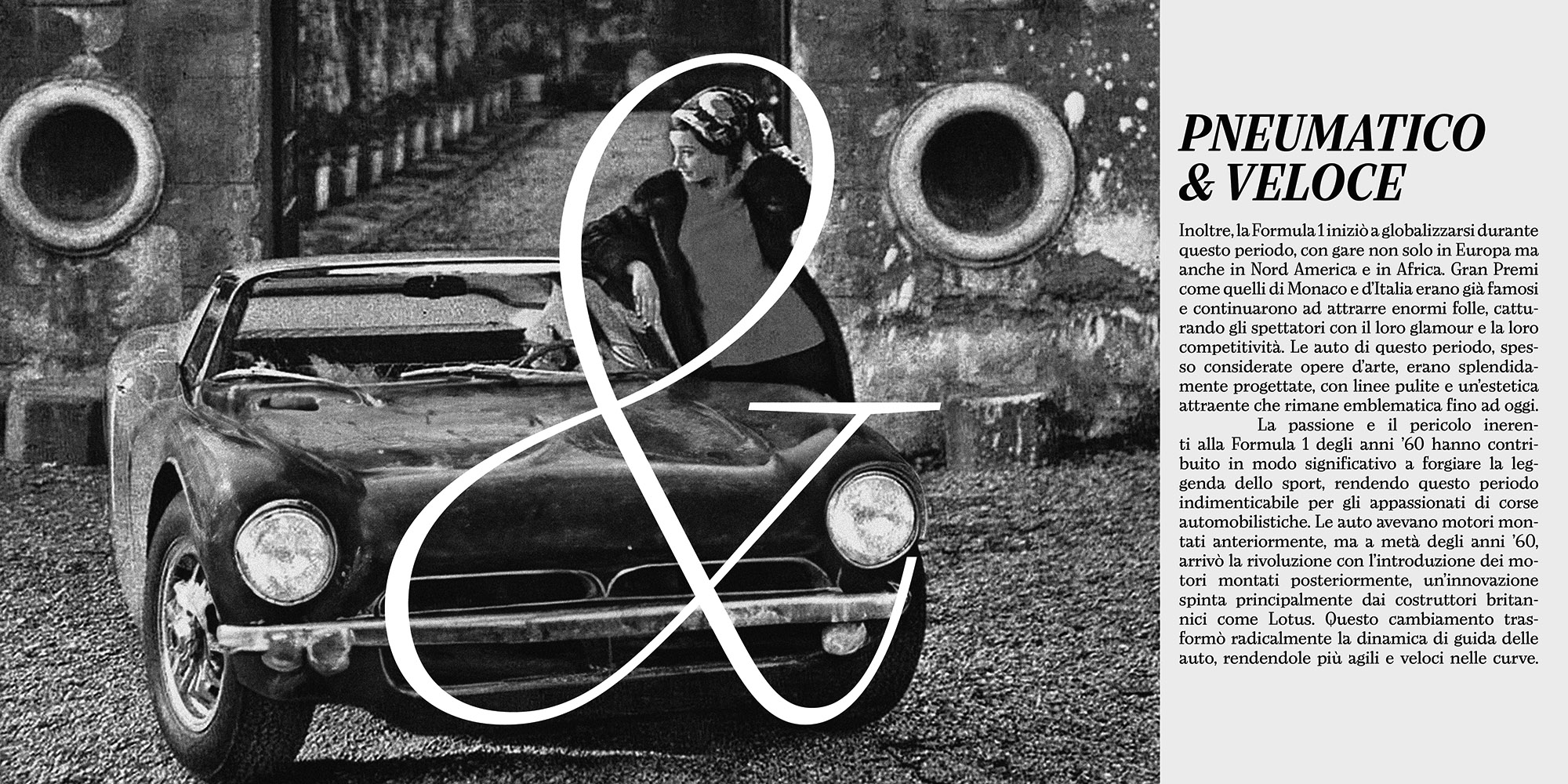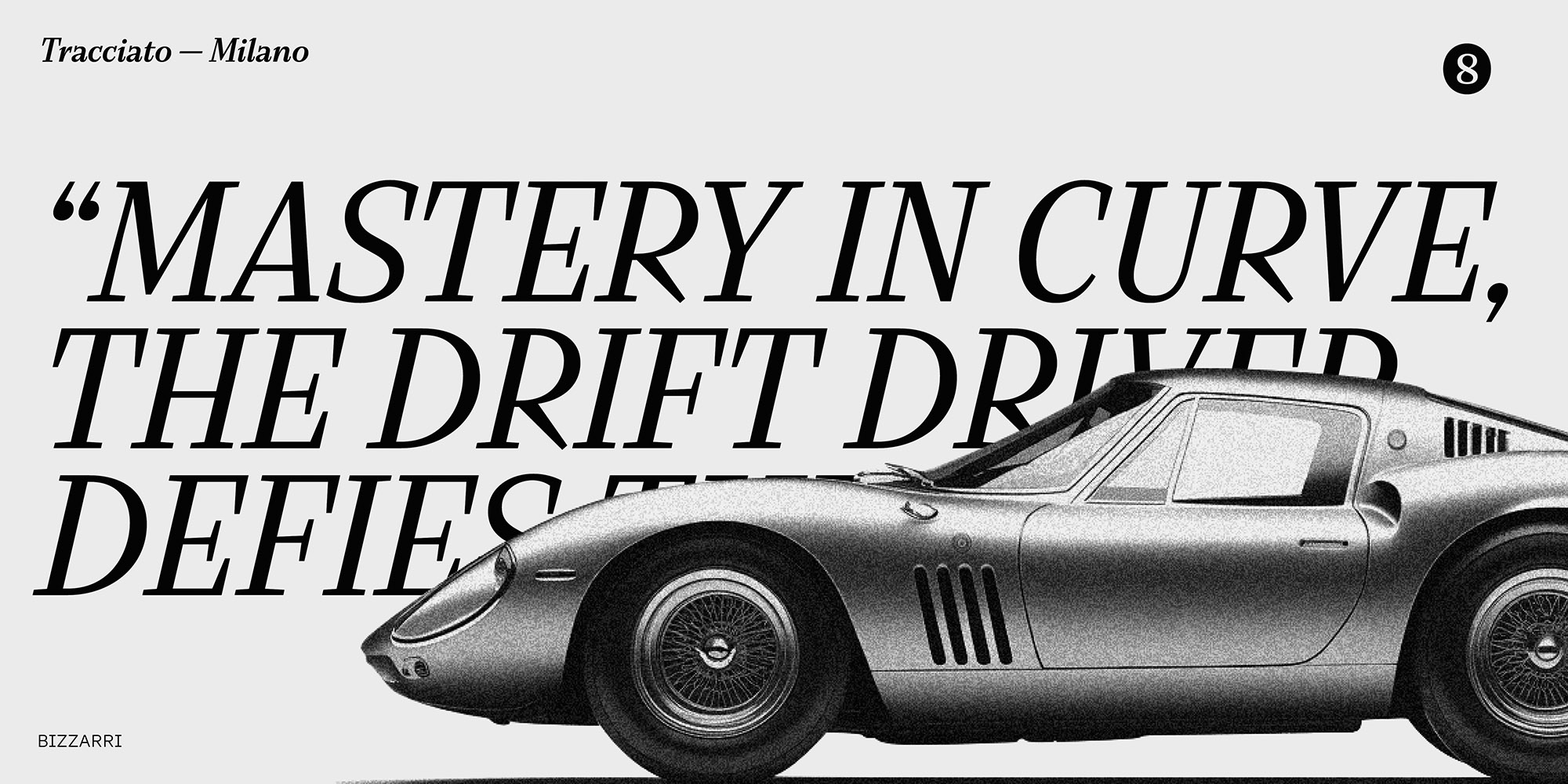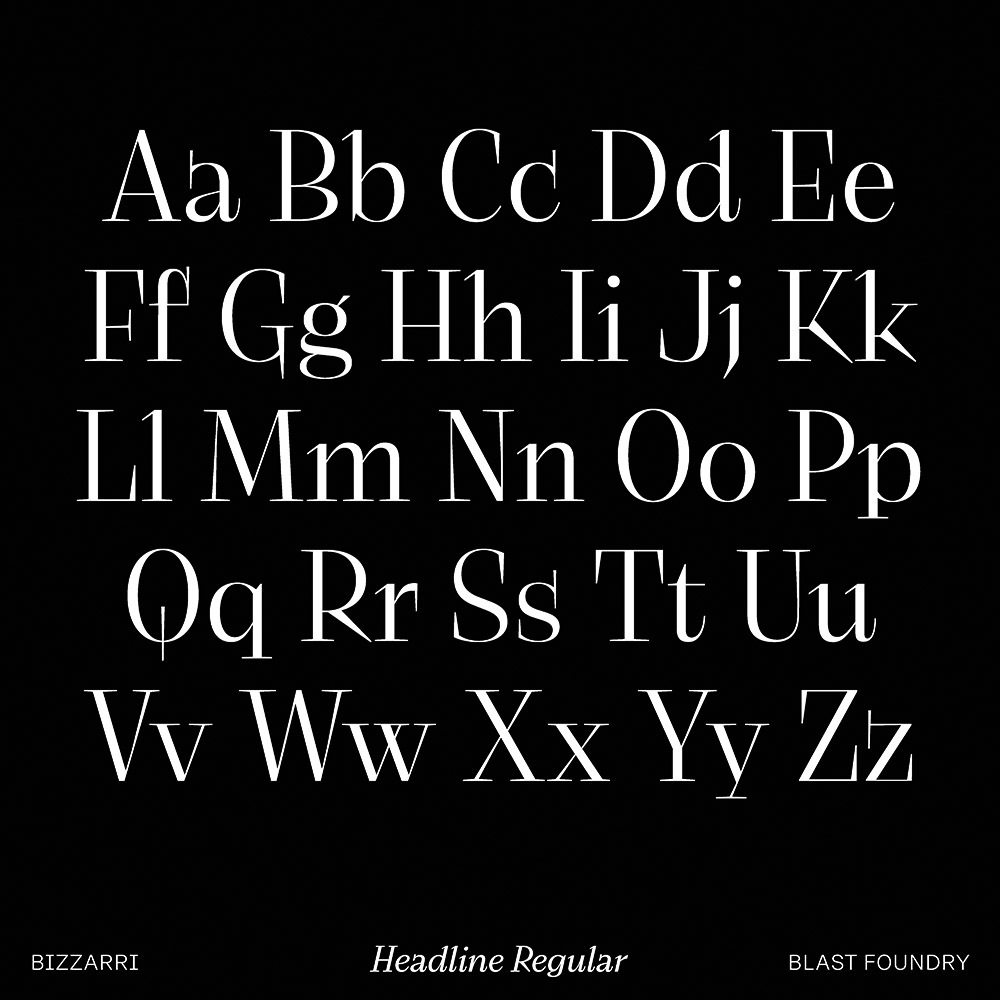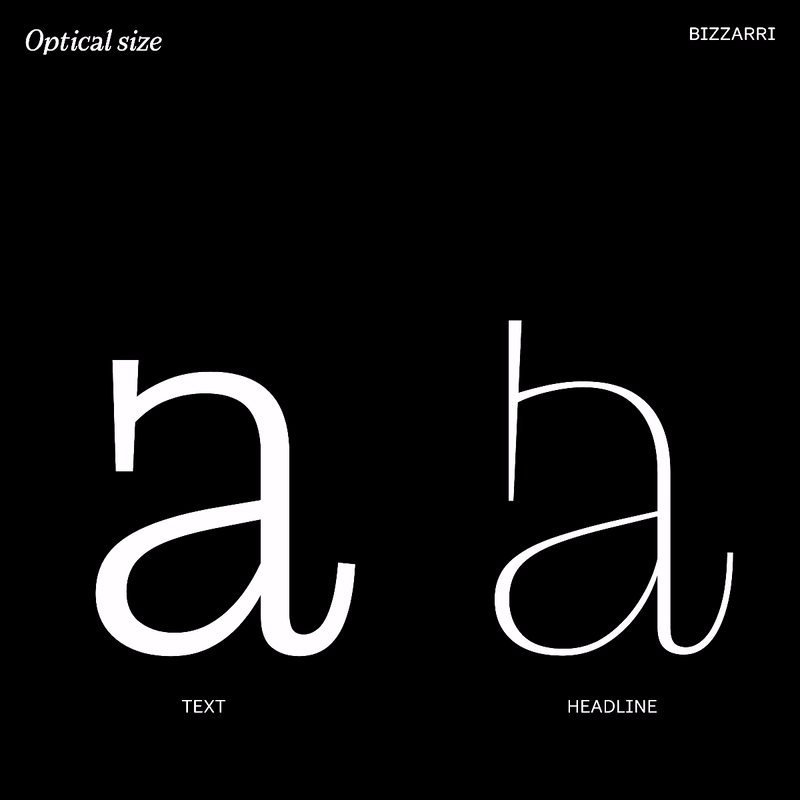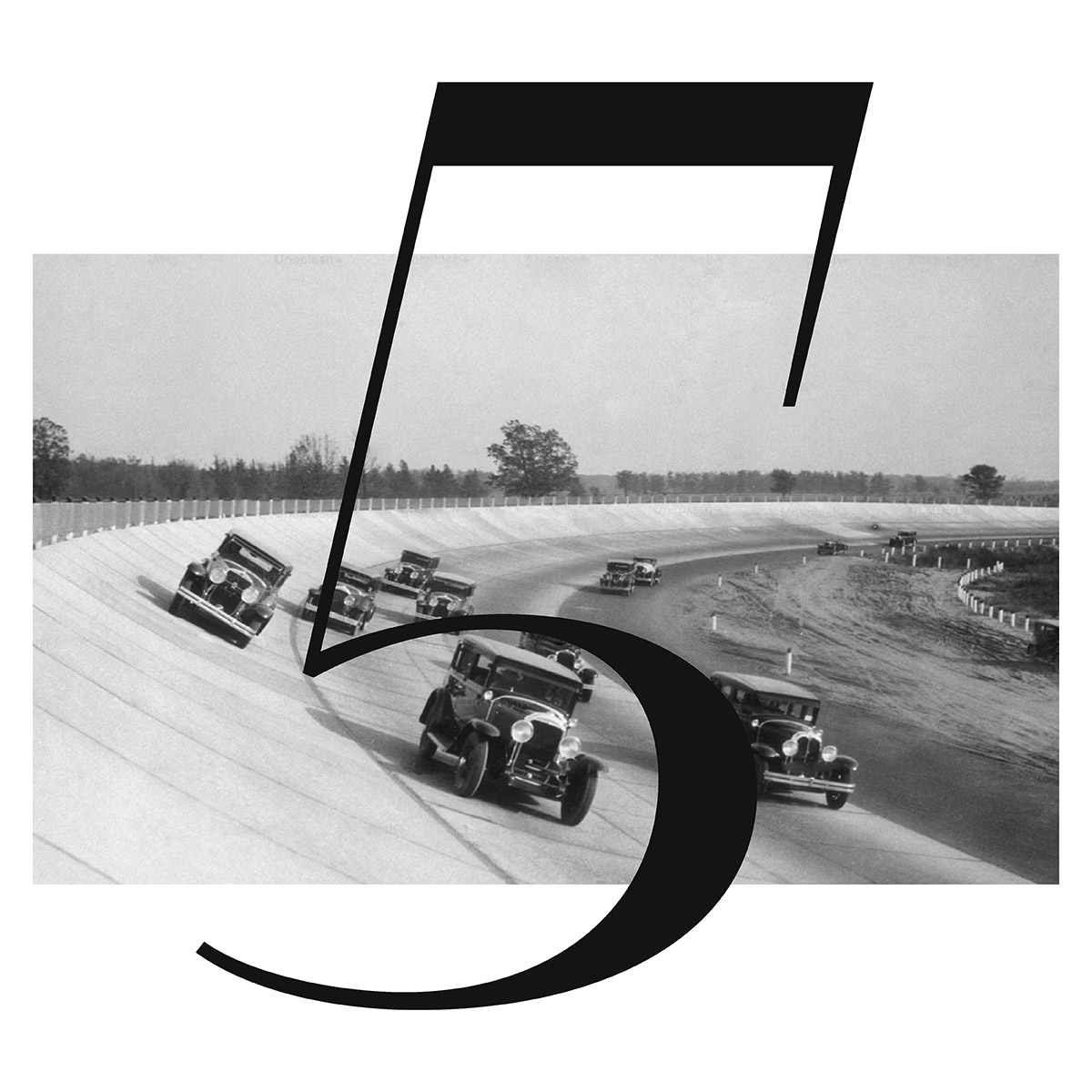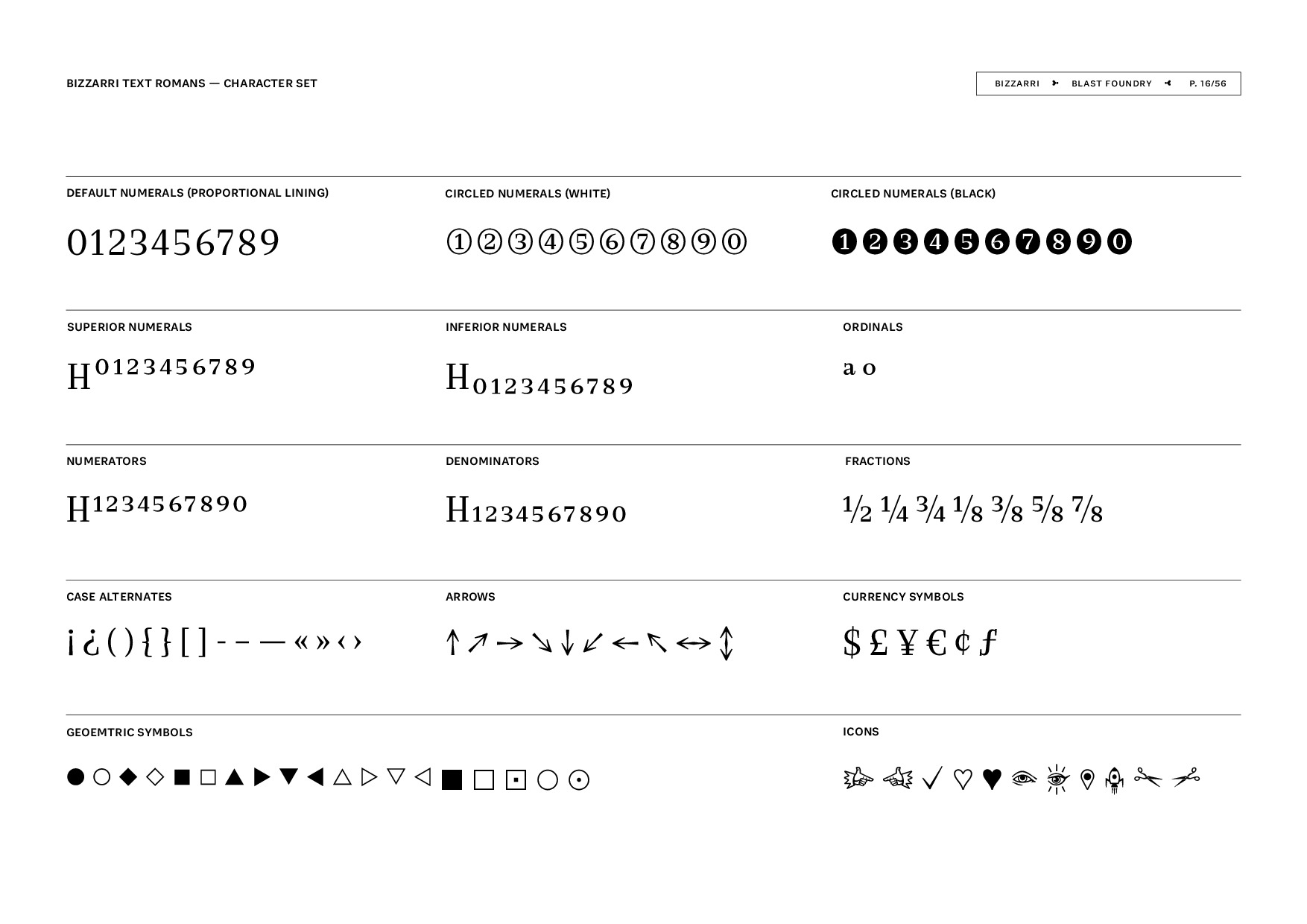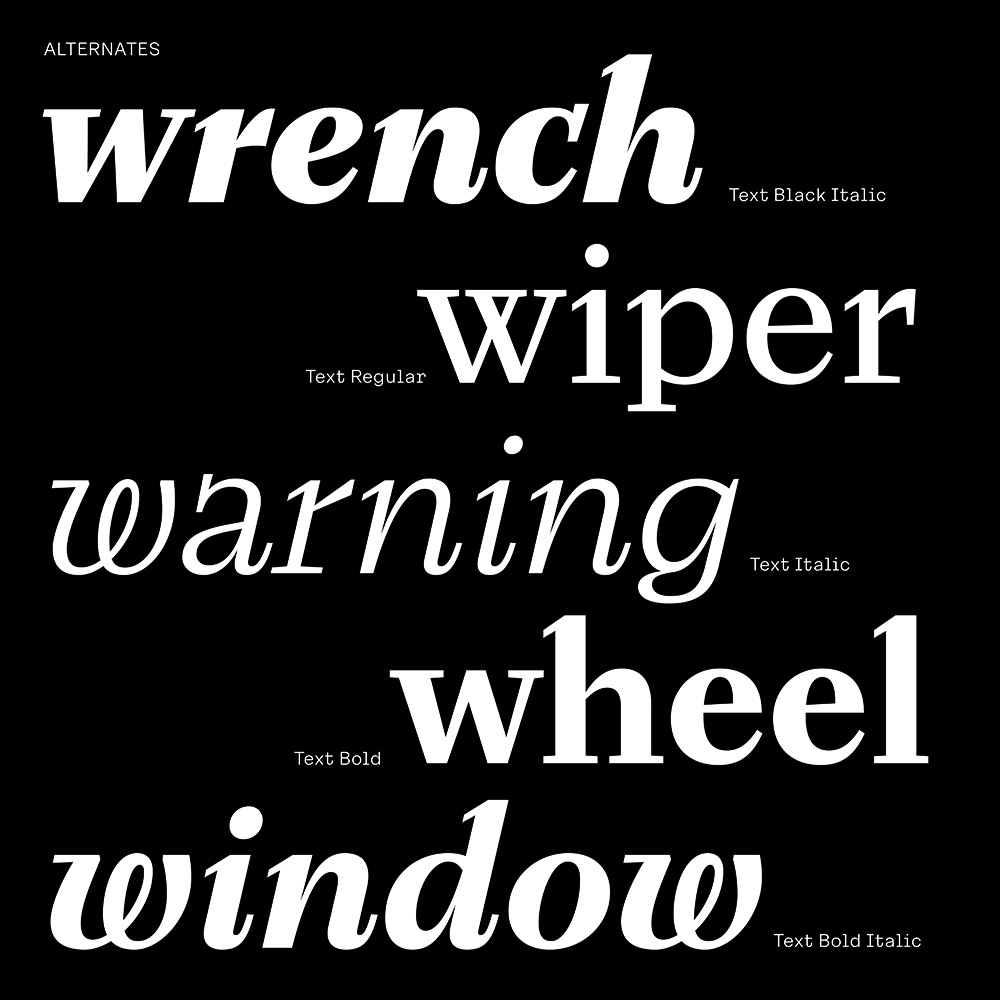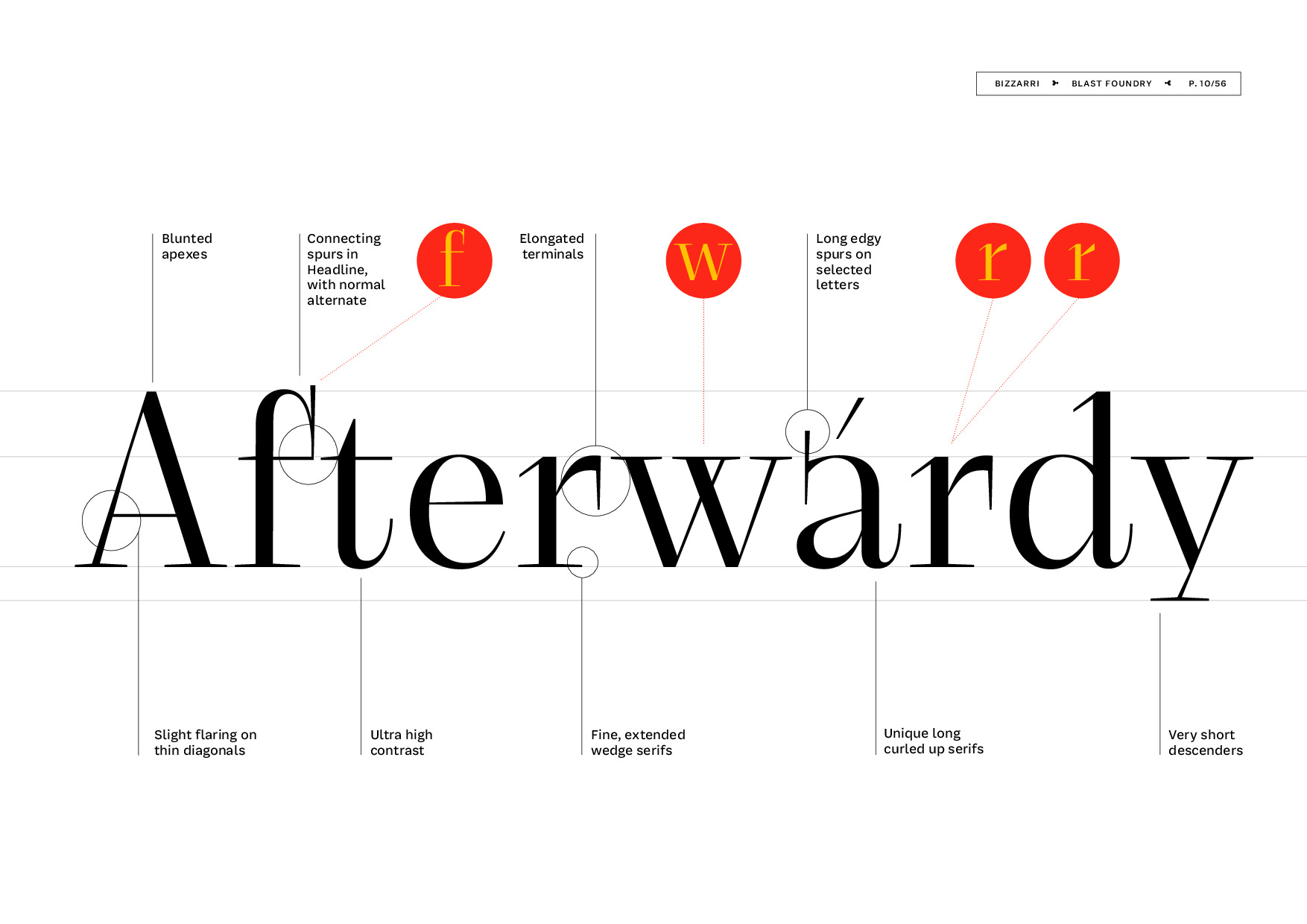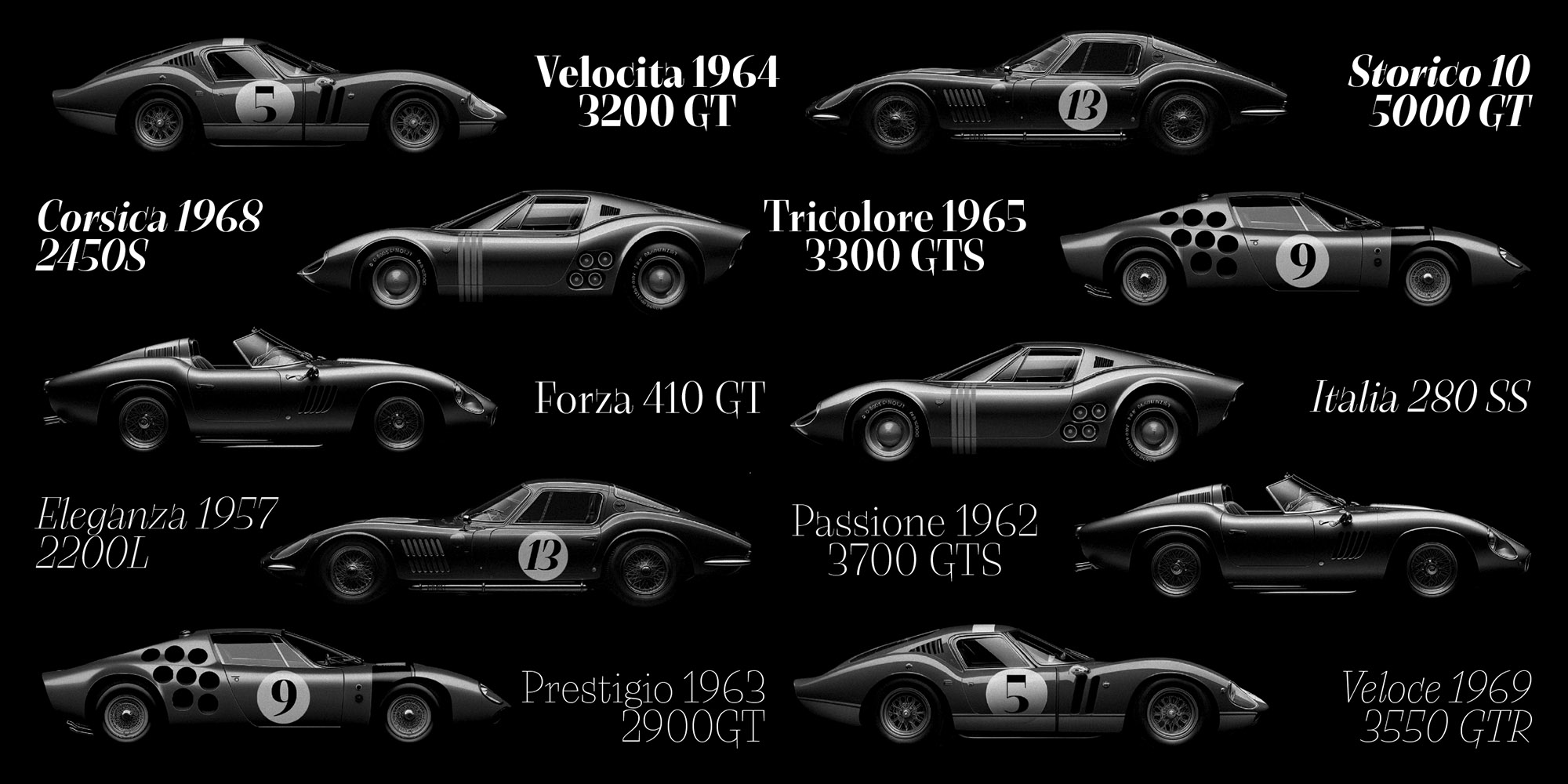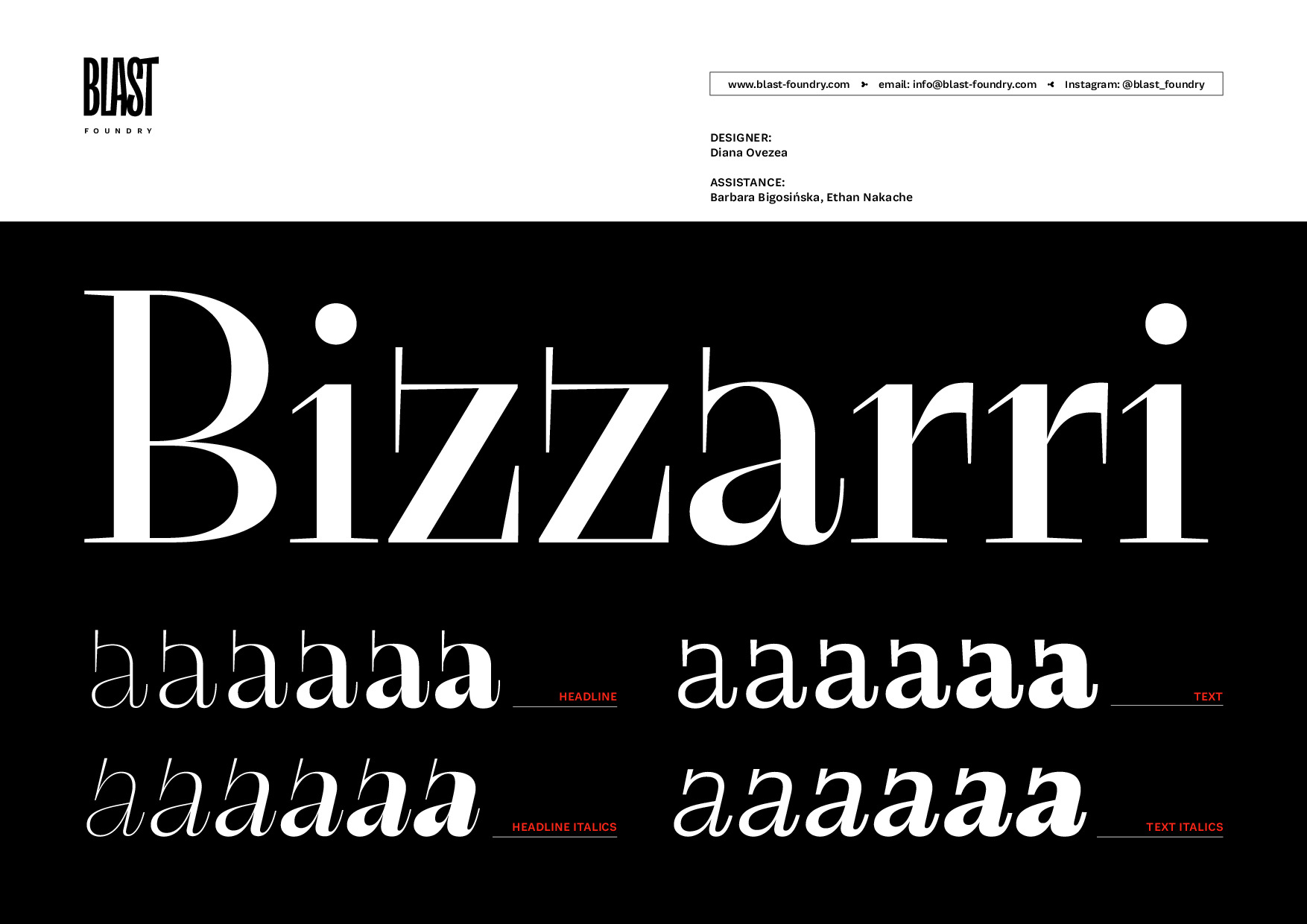
Bizzarri
▶ Designed by Diana Ovezea, 2024 ◀
6 weights, 2 optical sizes, editorial
Introducing Bizzarri: a dynamic type family drawing inspiration from the sleek lines of racing cars. With two distinct subfamilies – Bizzarri Headline and Bizzarri Text – this versatile typeface bridges the gap between impactful display work and legible body text.
Tall ascenders, high contrast, and angular serifs give Bizzarri Headline version a sophisticated and bold presence in large formats. In contrast, Bizzarri Text subfamily softens these features, providing clarity and comfort for extended reading without sacrificing personality. The italics strike a unique balance between elegance and sharpness, enhancing the family’s versatility.